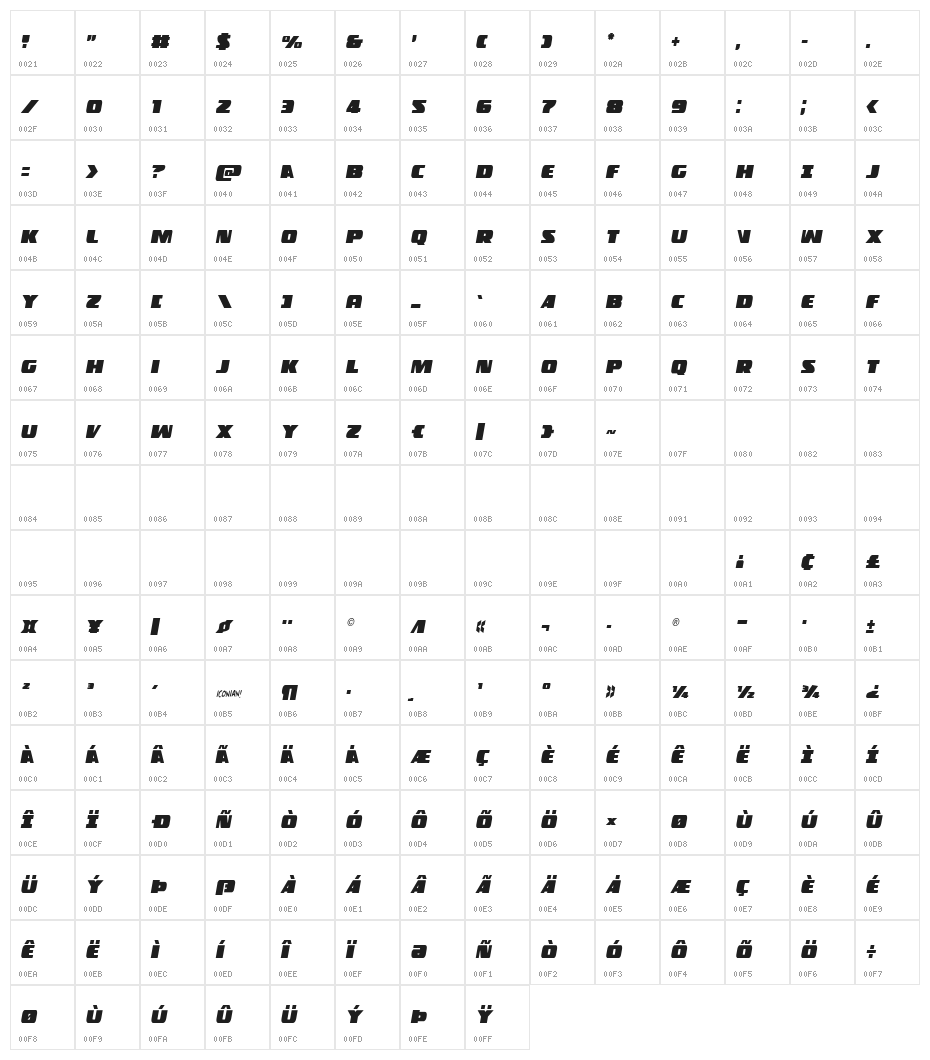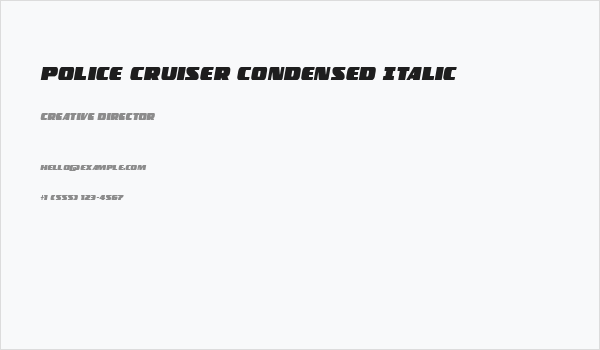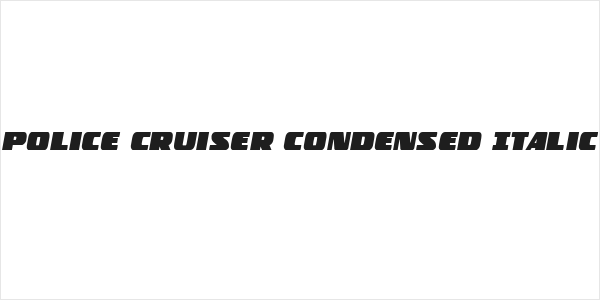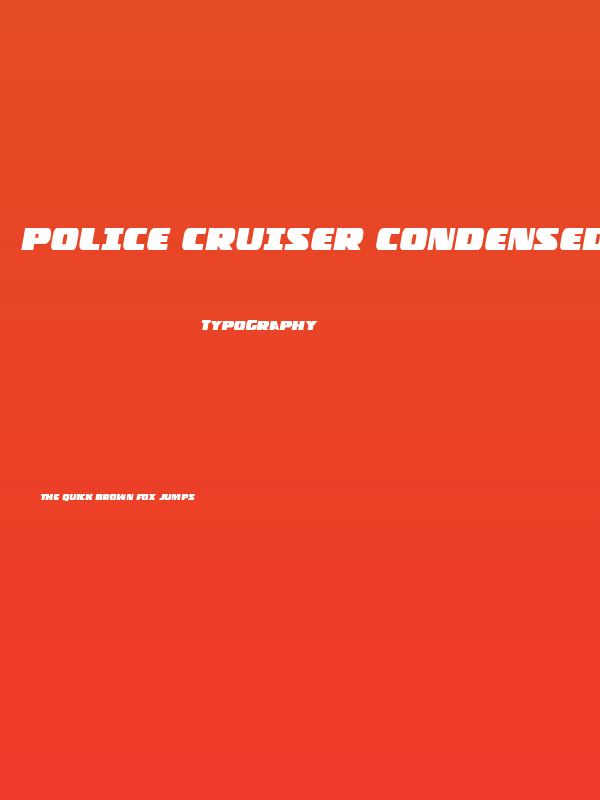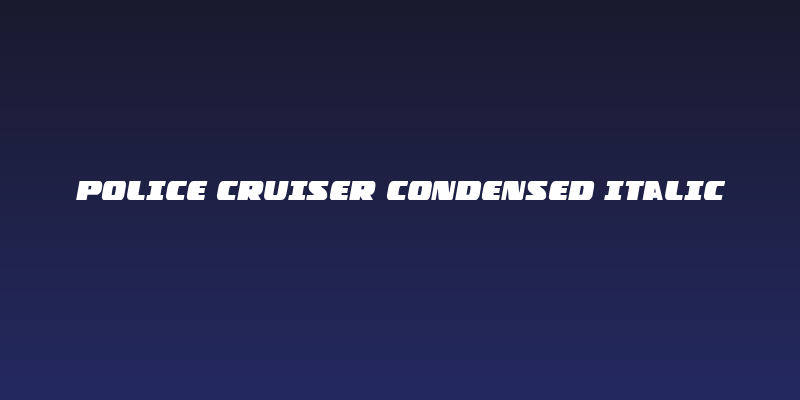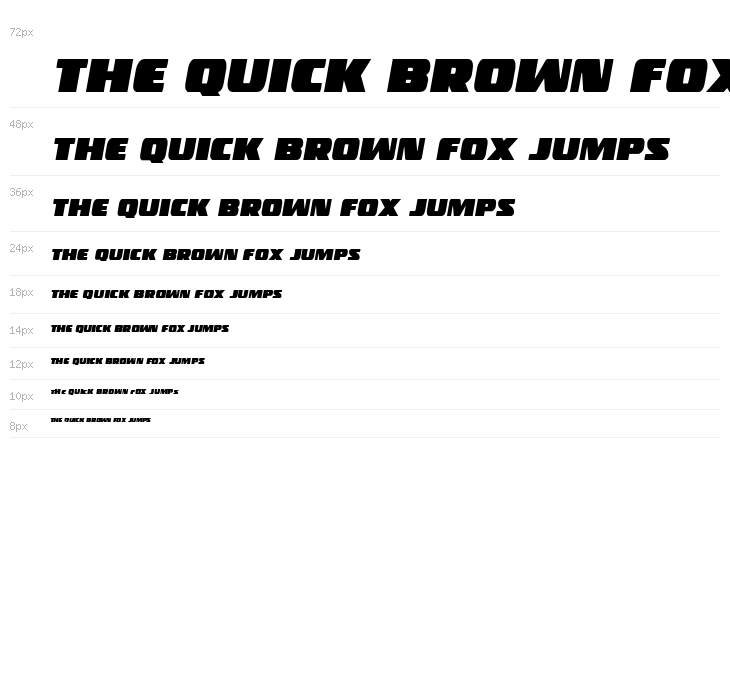
Police Cruiser Condensed Italic Font
Police Cruiser Condensed Italic Description
This font exhibits a bold and dynamic style, characterized by its condensed and italicized letterforms. The uppercase and lowercase letters maintain a consistent slant, adding a sense of motion and urgency. The bold weight of the strokes enhances its visibility and impact, making it suitable for attention-grabbing designs. The numbers and special characters follow the same stylistic approach, ensuring uniformity across all glyphs. The condensed width allows for efficient use of space, making it ideal for headlines and titles where space is limited.
| Proposed Projects | Ideal for use in posters, banners, sports team branding, and automotive designs where a strong and energetic presence is desired. |